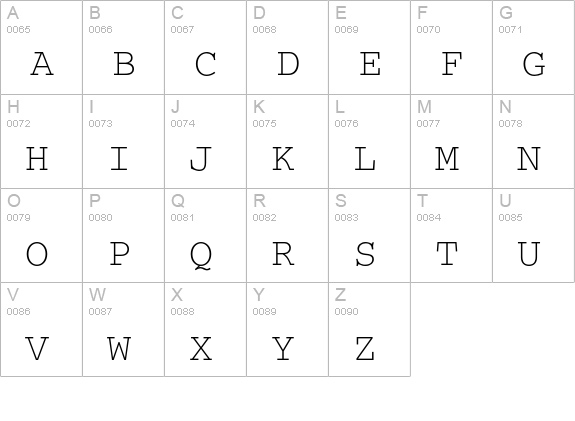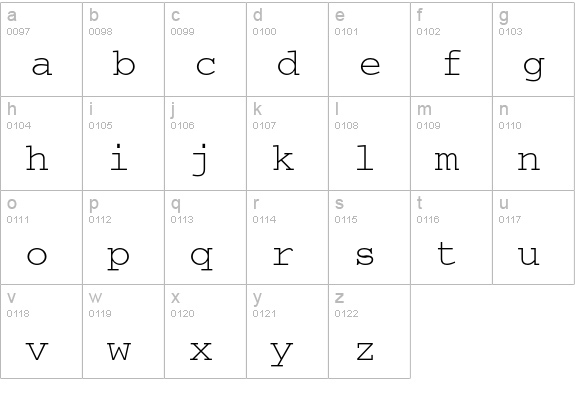
PT Courier Cyrillic is a timeless and versatile font designed for those seeking a classic and professional look for their projects. With its clean lines and easy readability, PT Courier Cyrillic is perfect for a wide range of applications, from print materials to digital designs. This font features the full set of Cyrillic characters, making it ideal for projects that require multilingual support. Best of all, PT Courier Cyrillic is available for free download at FontsMarket.com. Whether you are a designer looking to add a touch of sophistication to your work or a business owner in need of a reliable font for your branding materials, PT Courier Cyrillic is sure to meet your needs. Don't miss out on this stylish and functional font - download it today and elevate your design projects to the next level.